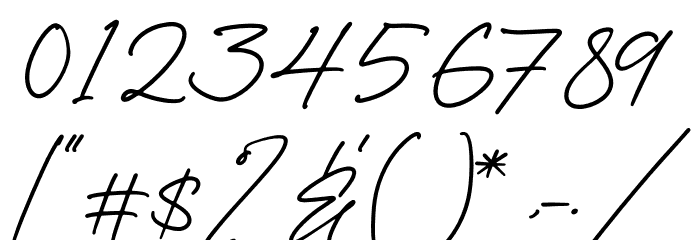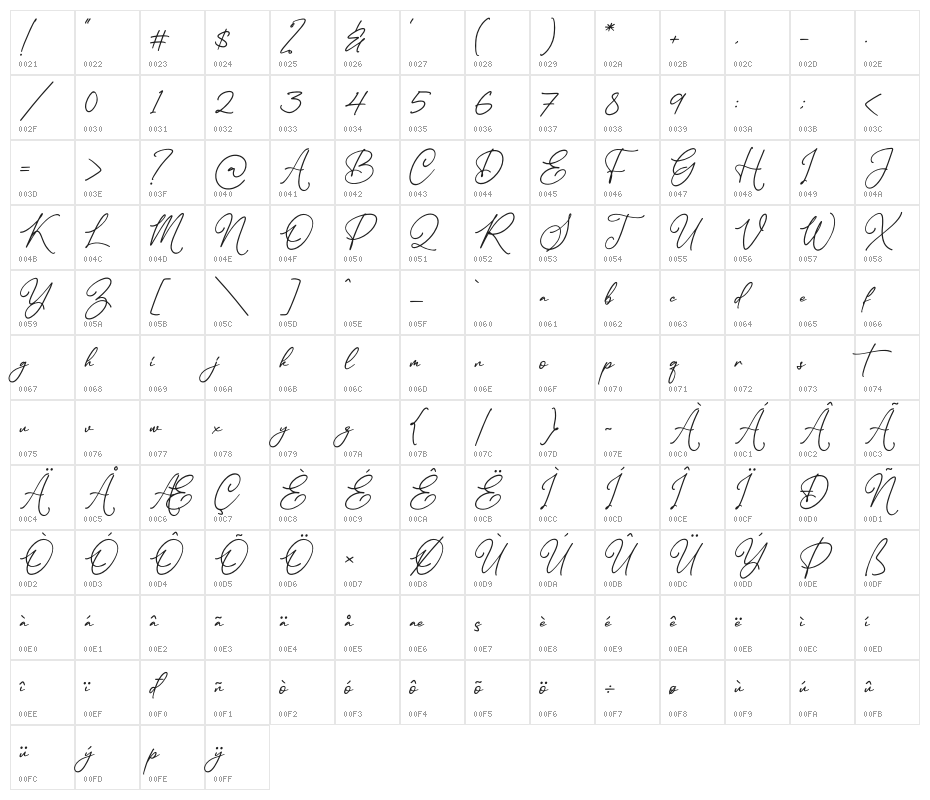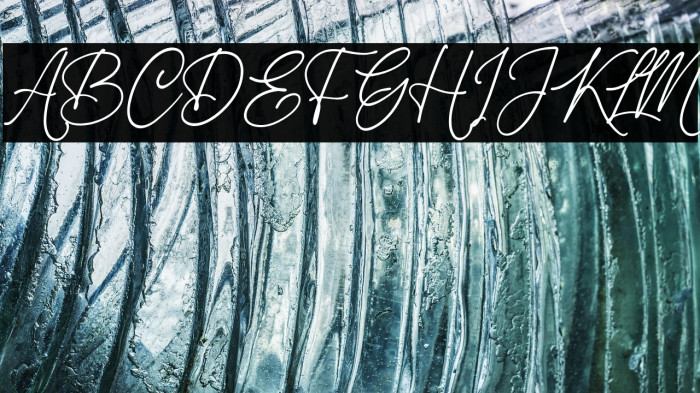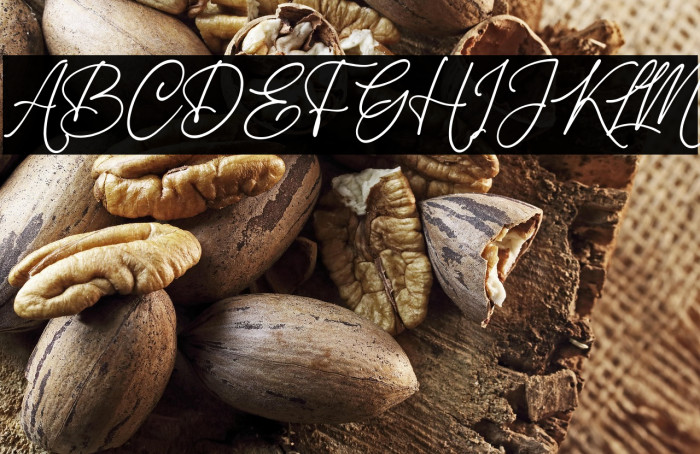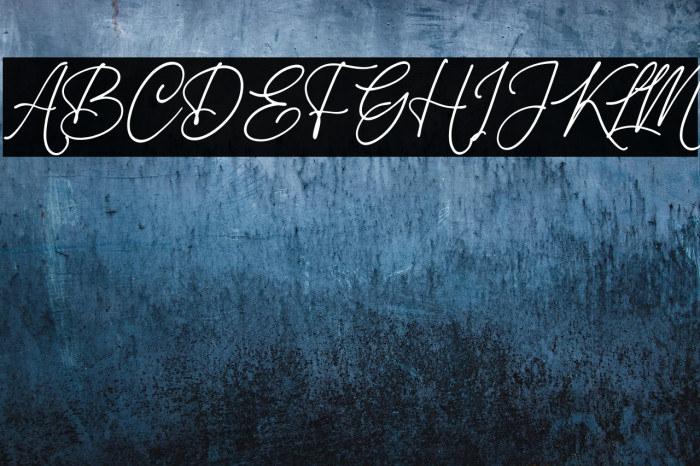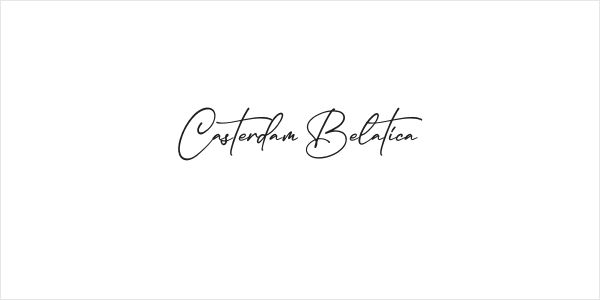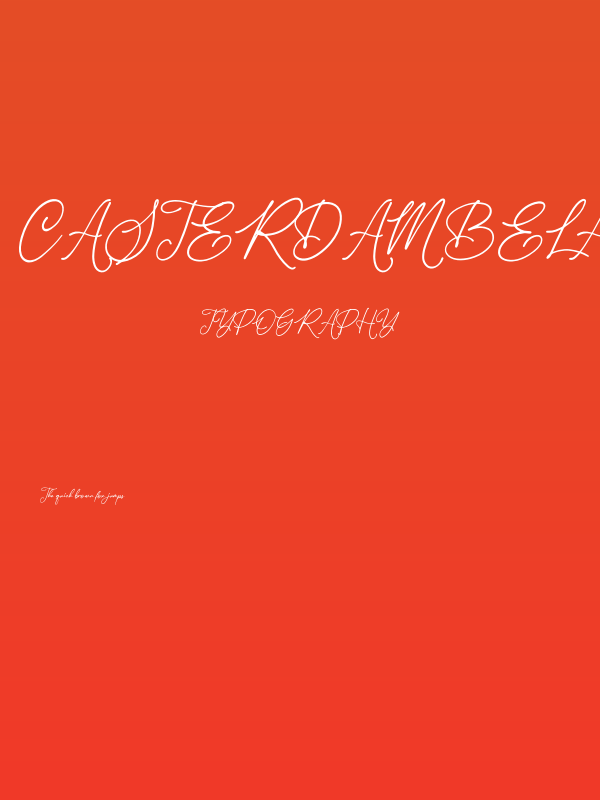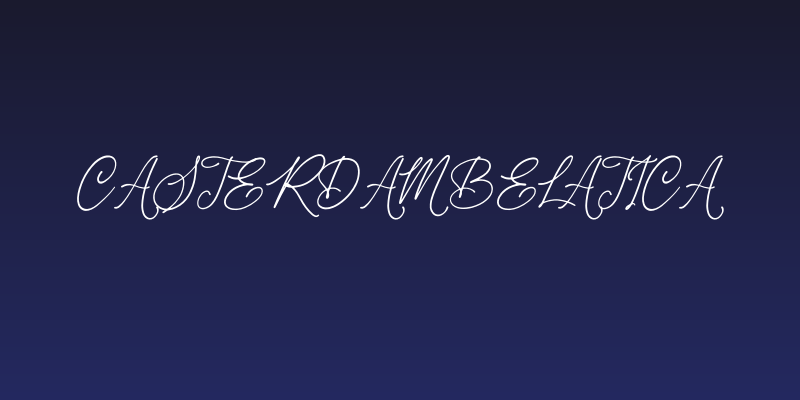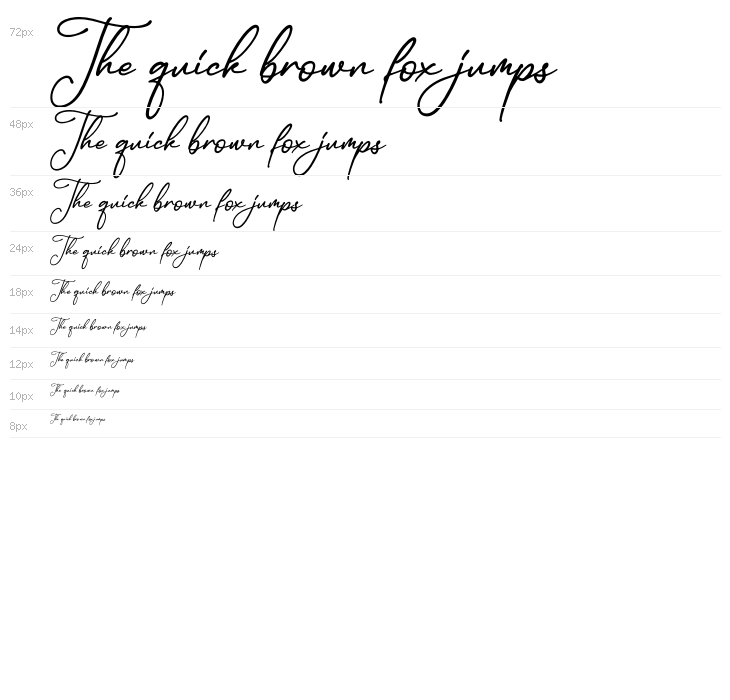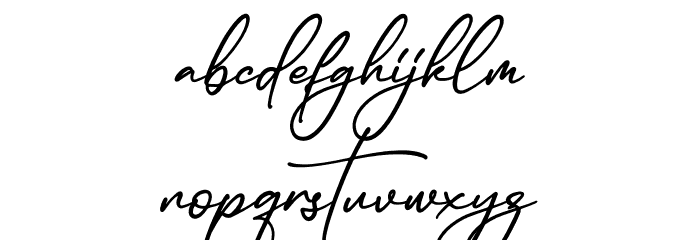
Casterdam Belatica Font
Casterdam Belatica Description
This font exudes elegance with its flowing, cursive style, characterized by smooth, continuous strokes that mimic the fluidity of handwriting. The uppercase letters are tall and graceful, with intricate loops and swirls that add a touch of sophistication. The lowercase letters maintain a consistent flow, enhancing readability while preserving the artistic flair. Numbers and special characters are crafted with the same attention to detail, ensuring a cohesive look across all text elements. The font's delicate lines and curves make it ideal for projects that require a personal, elegant touch.